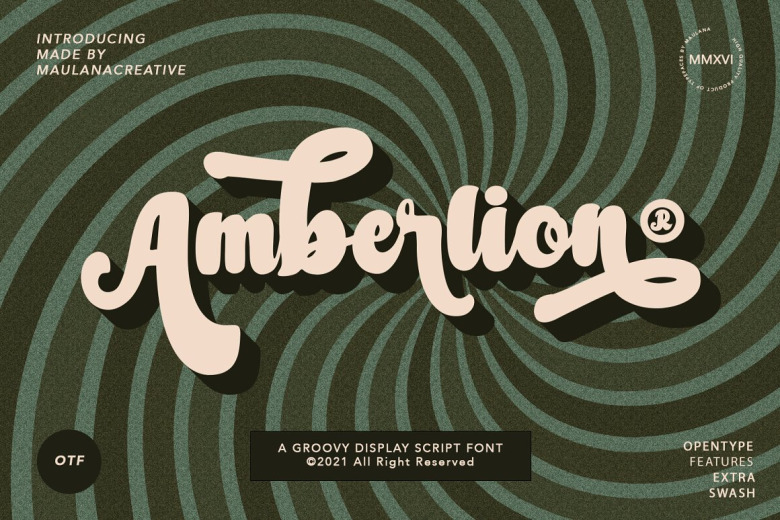
Amberlion Font
Amberlion bold 70’s script font, with the curvy bold stroke, uprights, and fun character.-optical balance — only you type your text to an express it’s character! Thanks to the Opentype features ligatures of character, alternate lowercase swashes and extra custom Amberlion Script font support multilingual.
Perfect use for logo, text block, short and long text, short caption, subtitle, masking text, book covers, movie titles, promotional posters, every type of design, and other. Make a stunning work with Amberlion.
Amberlion Bold Script Font